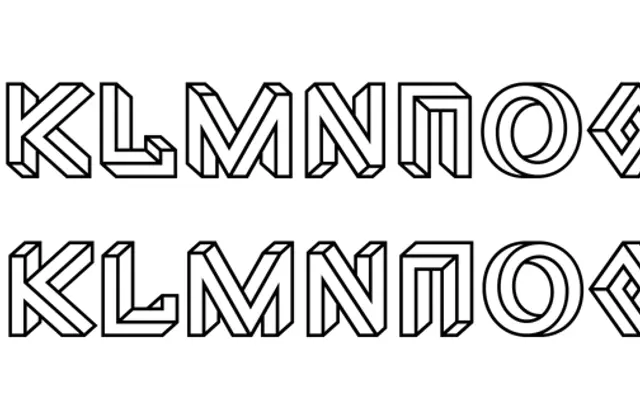
Macula
A layering display typeface by Jacques Le Bailly built on the visual logic of impossible objects, with five styles that stack to produce multi-colour three-dimensional letterforms.
Designed by Jacques Le Bailly in 2012, the five styles — Line, Solid, Background, Shaded and Shading — can be used individually or stacked in layers to create chromatic, illusionistic typography. Each character is drawn in two alternating variants, cycled automatically via OpenType contextual alternates to keep the rhythm of the letterforms visually lively. Stylistic alternates for A, E, N and O add further variation. The concept draws on the impossible-object tradition explored by Oscar Reutersvärd in the 1930s and made widely known through M.C. Escher.
Macula is a display typeface built around the visual concept of impossible objects, with five distinct styles designed to be layered for multi-colour effects. Its primary purpose is decorative and illusionistic rather than functional text setting.